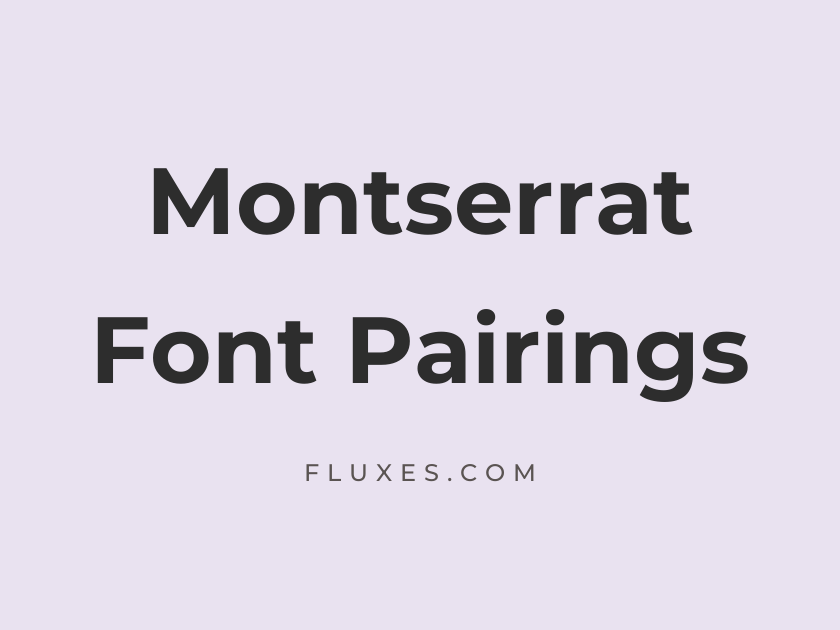
12 Best Font Pairings for Montserrat
Montserrat’s geometric letterforms, inspired by early twentieth century Buenos Aires signage, give it a confident, urban character that works equally well as a headline face or a clean body font. Because it comes in so many weights, it pairs successfully in both directions: as the bold display voice above a serif text block, or as the tidy, legible body copy beneath a more expressive heading. The Montserrat font combinations below cover branding, editorial, and web design use cases.
Montserrat + Lora
Modern Studio Collective
Lora's calligraphic curves soften the geometry above it, giving long paragraphs a warmer, more literary feel.
Montserrat’s rigid circles and straight stems create sharp contrast against Lora’s brush-influenced curves, so the heading reads as structural while the body feels handwritten and approachable. This split works well for lifestyle blogs and boutique brand sites that want geometry up top without feeling cold in the copy.
Playfair Display + Montserrat
An Editorial Point of View
Underneath a dramatic serif headline, Montserrat keeps the supporting text calm, orderly, and easy to scan.
Here the roles reverse: Playfair Display’s high-contrast strokes and sharp serifs carry the drama, while Montserrat’s even weight and generous x-height let readers move through paragraphs without friction. It is a reliable combination for magazine-style layouts and editorial homepages.
Montserrat + Merriweather
Clean Lines, Clear Voice
Merriweather was built for screens, so its sturdy serifs stay comfortable at body sizes across devices.
Both fonts were designed with digital legibility in mind, which means this pairing holds up equally well on a phone or a widescreen monitor. Merriweather’s slightly condensed, ink-trap details keep it from competing with Montserrat’s open geometry above it, so the hierarchy stays obvious at a glance.
Montserrat + PT Serif
Precision Meets Warmth
PT Serif's traditional proportions and moderate contrast make extended reading feel unhurried and familiar.
PT Serif was drawn for Cyrillic and Latin text alike, giving it a neutral, workmanlike quality that never fights for attention. Set against Montserrat’s crisp uppercase headlines, it reads as dependable rather than plain, which suits corporate reports and documentation-style sites.
Bitter + Montserrat
Grounded, Confident Headlines
Bitter's slab serifs add weight to a headline, then Montserrat carries the message forward with quiet efficiency.
Bitter’s slab serif structure shares a similar visual weight with Montserrat, so the transition from heading to body feels intentional rather than abrupt. This pairing suits portfolio sites and product pages where the header needs presence but the description should stay understated.
Montserrat + Noto Serif
Structured and Approachable
Noto Serif was designed as a companion to sans-serif interfaces, so it never clashes with a geometric headline.
Google built Noto Serif specifically to sit alongside sans-serif system fonts like Noto Sans, and that heritage shows in how naturally it settles under Montserrat. The result is an interface-friendly pairing that feels equally at home in a SaaS product or a documentation hub.
Cormorant Garamond + Montserrat
Refined Editorial Elegance
After a delicate display serif, Montserrat's steady rhythm gives readers a clear, uncluttered place to land.
Cormorant Garamond’s thin, high-contrast strokes are built for large display sizes, so it needs a sturdier partner once the type drops to paragraph scale. Montserrat provides exactly that stability, making this combination well suited to wedding invitations, fashion editorials, and boutique branding.
Montserrat + Karla
Bright, Direct Communication
Karla shares Montserrat's geometric bones but adds a slightly grotesque texture that feels friendly in long copy.
Both typefaces come from the same general sans-serif family tree, so their proportions and stroke widths align without looking identical. Pairing two sans fonts like this works best when one, in this case Montserrat, is reserved for larger, bolder headings so the type still reads as a clear hierarchy.
Montserrat + Crimson Text
Timeless Yet Contemporary
Crimson Text draws on old-style book typefaces, lending a scholarly, unhurried tone to longer passages.
Crimson Text’s classical proportions and moderate contrast recall printed books, which contrasts nicely with Montserrat’s distinctly modern, urban geometry above it. This tension between old and new suits publishing projects, academic sites, and thoughtful long-form blogs.
Abril Fatface + Montserrat
Bold Statement Headlines
After an ultra-bold display face, Montserrat's restrained weight lets the eye recover before reading on.
Abril Fatface is about as loud as display type gets, with extreme thick-and-thin contrast that demands space around it. Montserrat’s even, moderate strokes act as a visual palate cleanser, making this pairing effective for posters, fashion campaigns, and bold landing pages.
Tips for pairing Montserrat
Let one font dominate. If Montserrat is your headline, choose a body serif with moderate contrast so it does not compete with the geometry above it.
Watch x-heights. Montserrat has a fairly large x-height, so pair it with body fonts like Lora or Merriweather that are sized generously enough to match visually.
Limit weights. Montserrat’s family includes many weights; pick two or three for hierarchy rather than mixing every option on one page.